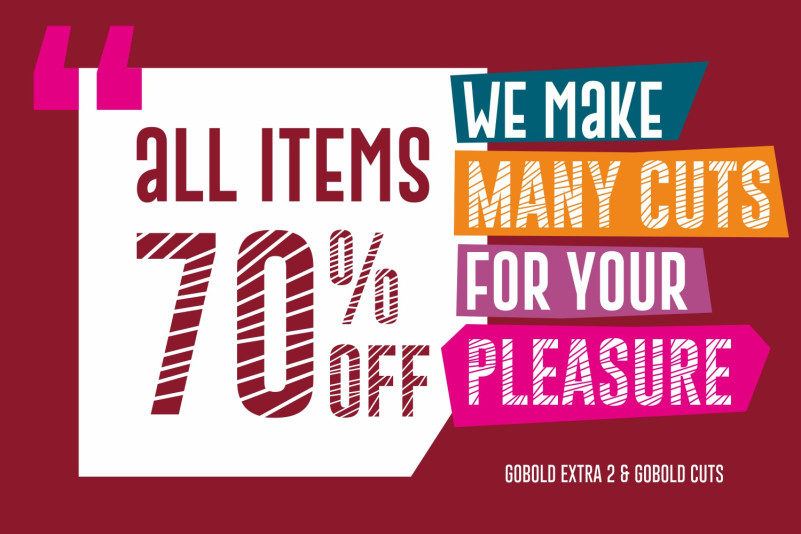
Gobold Font Family
Gobold Sans Serif Font is a vintage sans serif, created to be used for logotypes, print, branding, signage and any other type of project that you want to add a classic feel to. Gobold is a stunning, versatile sans serif family packed with 28 variations. Each variations matches the rest of the family which makes Gobold useful for any project.